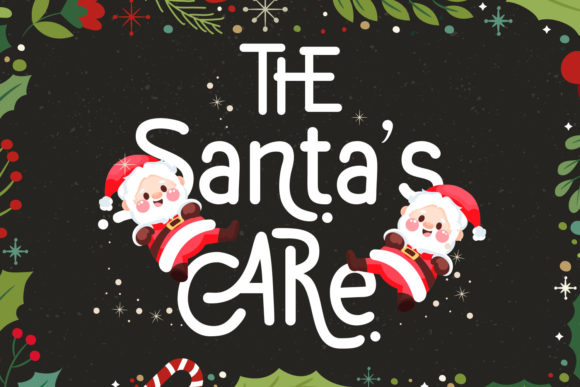
Dive into the enchanting world of Santa's Care Font, a script font family that captures the essence of trendy and stylish design. This meticulously crafted font is a masterpiece by Runsell Graphic, designed to unleash your creativity and captivate your audience.
Santa's Care Font exudes a clean and delicate handwritten charm, flowing effortlessly across your designs with its graceful strokes and elegant curves. Its PUA encoding makes it incredibly versatile, allowing you to effortlessly access all of its glyphs and swashes, unlocking endless possibilities for stunning visual creations.
Indulge in the captivating beauty and versatility of Santa's Care Font, whether you're crafting social media graphics, eye-catching logos, alluring branding materials, or any other creative project that demands a touch of sophistication and charisma. Let this font be your artistic partner, transforming your design visions into captivating realities.
With Santa's Care Font, you'll be amazed at how effortlessly it complements a wide range of design aesthetics, from classic and timeless to modern and edgy. Its ability to adapt seamlessly to various styles makes it a must-have for any creative professional seeking to make a lasting impact.
Unleash your imagination and let Santa's Care Font elevate your designs to new heights. Experience the joy of creating captivating visuals that resonate with your audience, leaving a lasting impression that sets you apart from the ordinary. Embrace the magic of Santa's Care Font and watch your creative dreams come to life in a symphony of style and elegance.